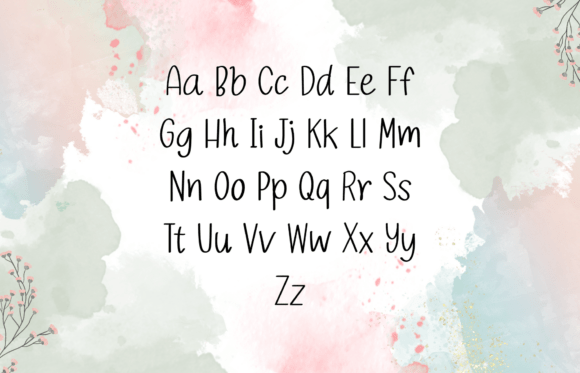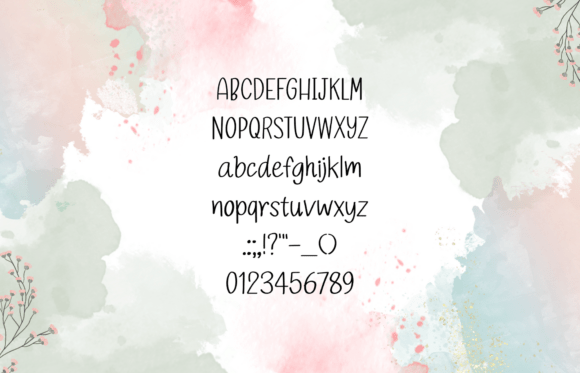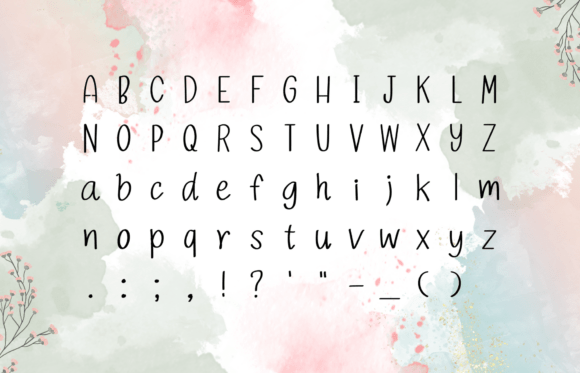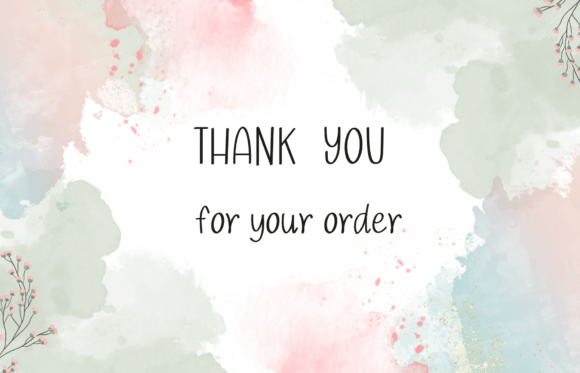
Astilbe Font: The Sweet and Friendly Handwritten Display Font
Are you looking for a font that can add a touch of fun and whimsy to your designs? Look no further than Astilbe Font! This sweet and friendly handwritten display font is perfect for crafts, digital design, presentations, and more. In this article, we’ll explore the features and benefits of Astilbe Font, and show you how to use it to take your designs to the next level.
What is Astilbe Font?
Astilbe Font is a handwritten display font that is designed to be cute and fun. Its playful and friendly vibe makes it perfect for a wide range of design projects, from wedding invitations and cards to posters, movie titles, and more. This font is ideal for use in school for both teachers and students, and can add a touch of personality to any design.
Key Features of Astilbe Font
- Cute and Fun Design: Astilbe Font has a playful and whimsical design that is sure to add a touch of fun to any project.
- Handwritten Style: This font has a handwritten style that gives it a personal and friendly feel.
- Versatile: Astilbe Font can be used for a wide range of design projects, from digital design to crafts and presentations.
- Easy to Read: Despite its playful design, Astilbe Font is easy to read and can be used for both headings and body text.
Uses for Astilbe Font
Astilbe Font is a versatile font that can be used for a wide range of design projects. Here are some ideas to get you started:
- Wedding Invitations and Cards: Add a touch of whimsy and romance to your wedding invitations and cards with Astilbe Font.
- Crafts: Astilbe Font is perfect for use in crafts, such as scrapbooking, journaling, and more.
- Digital Design: Use Astilbe Font in your digital designs, such as social media graphics, blog posts, and more.
- Presentations: Add a touch of personality to your presentations with Astilbe Font.
- Comic Book Style: Astilbe Font is perfect for use in comic books, graphic novels, and other illustrated projects.
- Game Online: Use Astilbe Font in your online games, such as game titles, buttons, and more.
- Love Shirts: Add a touch of whimsy to your love shirts and other apparel with Astilbe Font.
- Posters: Use Astilbe Font in your posters, flyers, and other marketing materials.
- Movie Titles: Astilbe Font is perfect for use in movie titles, trailers, and other film-related projects.
Tips for Using Astilbe Font
Here are some tips for using Astilbe Font in your designs:
- Use it for Headings: Astilbe Font is perfect for use in headings and titles, where its playful design can really shine.
- Mix it with Other Fonts: Astilbe Font pairs well with other fonts, so don’t be afraid to mix it with some of your favorite fonts.
- Experiment with Colors: Astilbe Font looks great in a wide range of colors, so experiment with different colors to find the one that works best for your design.
- Use it for Kids’ Projects: Astilbe Font is perfect for use in kids’ projects, such as children’s books, educational materials, and more.
| Font Name | Astilbe Font |
| Author | Beer Design |
Astilbe Font is a sweet and friendly handwritten display font that is perfect for adding a touch of fun and whimsy to your designs. With its playful design, versatility, and ease of use, Astilbe Font is a great choice for designers and crafters of all levels. Whether you’re working on a wedding invitation, a digital design project, or a craft, Astilbe Font is sure to bring a smile to your face and a touch of personality to your work.